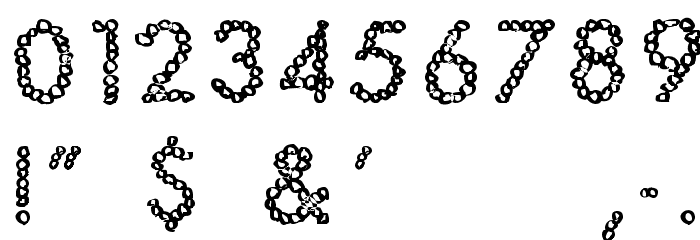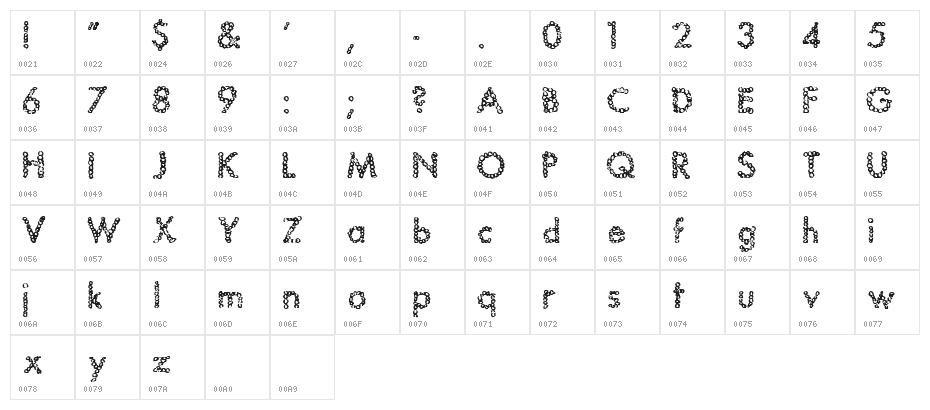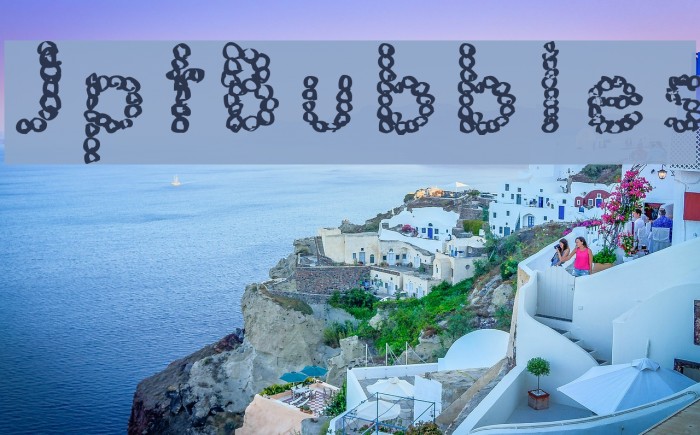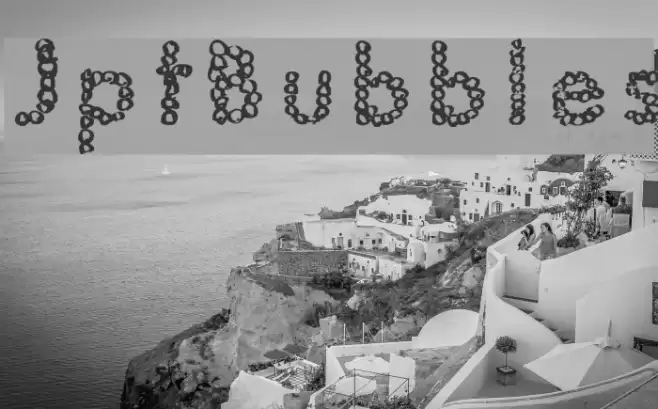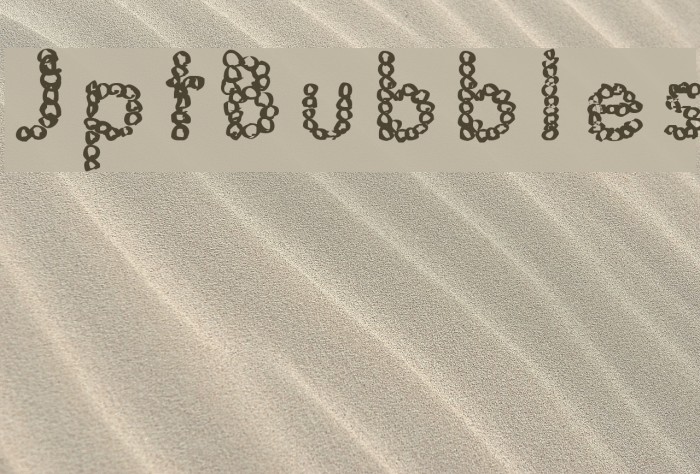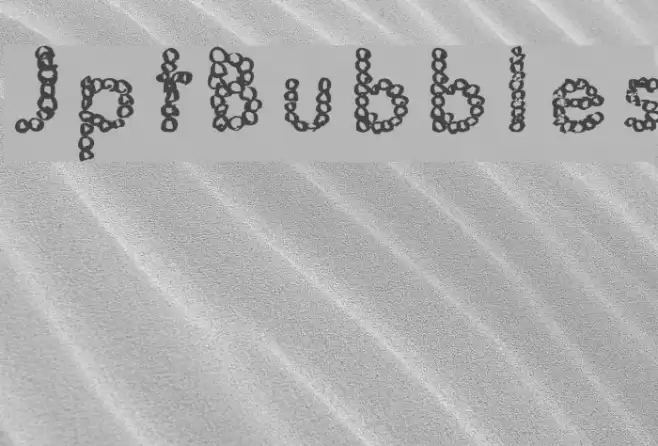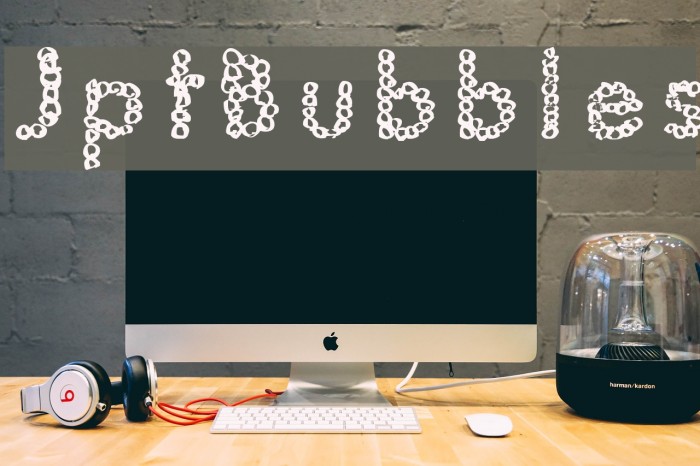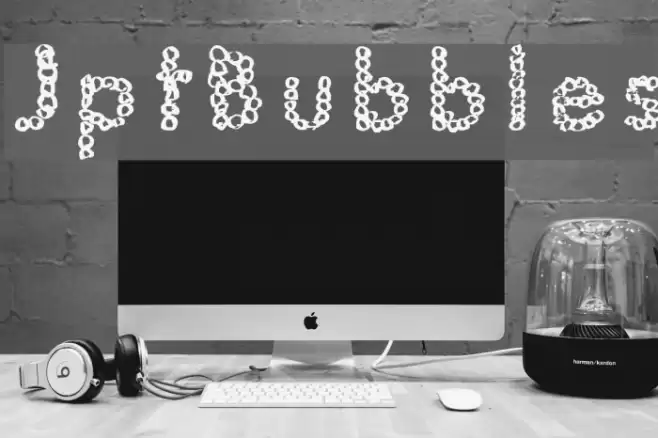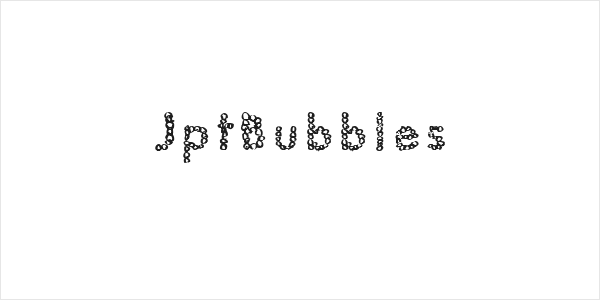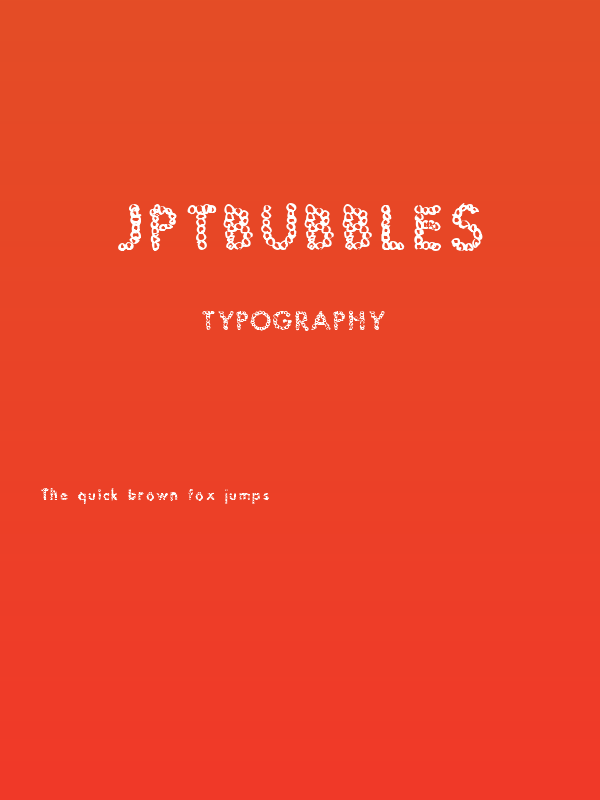
JptBubbles Font
JptBubbles Description
This playful and whimsical font is characterized by its unique bubble-like appearance, where each character is formed by a series of interconnected circles. The design gives off a fun and light-hearted vibe, making it ideal for projects that require a touch of creativity and imagination. The font maintains a consistent structure across both uppercase and lowercase letters, as well as numbers and special characters, ensuring readability while still embracing its decorative nature. The bubbly texture adds a three-dimensional feel, making it stand out in any design context.
| Proposed Projects | Ideal for children's books, party invitations, playful branding, and creative posters. |